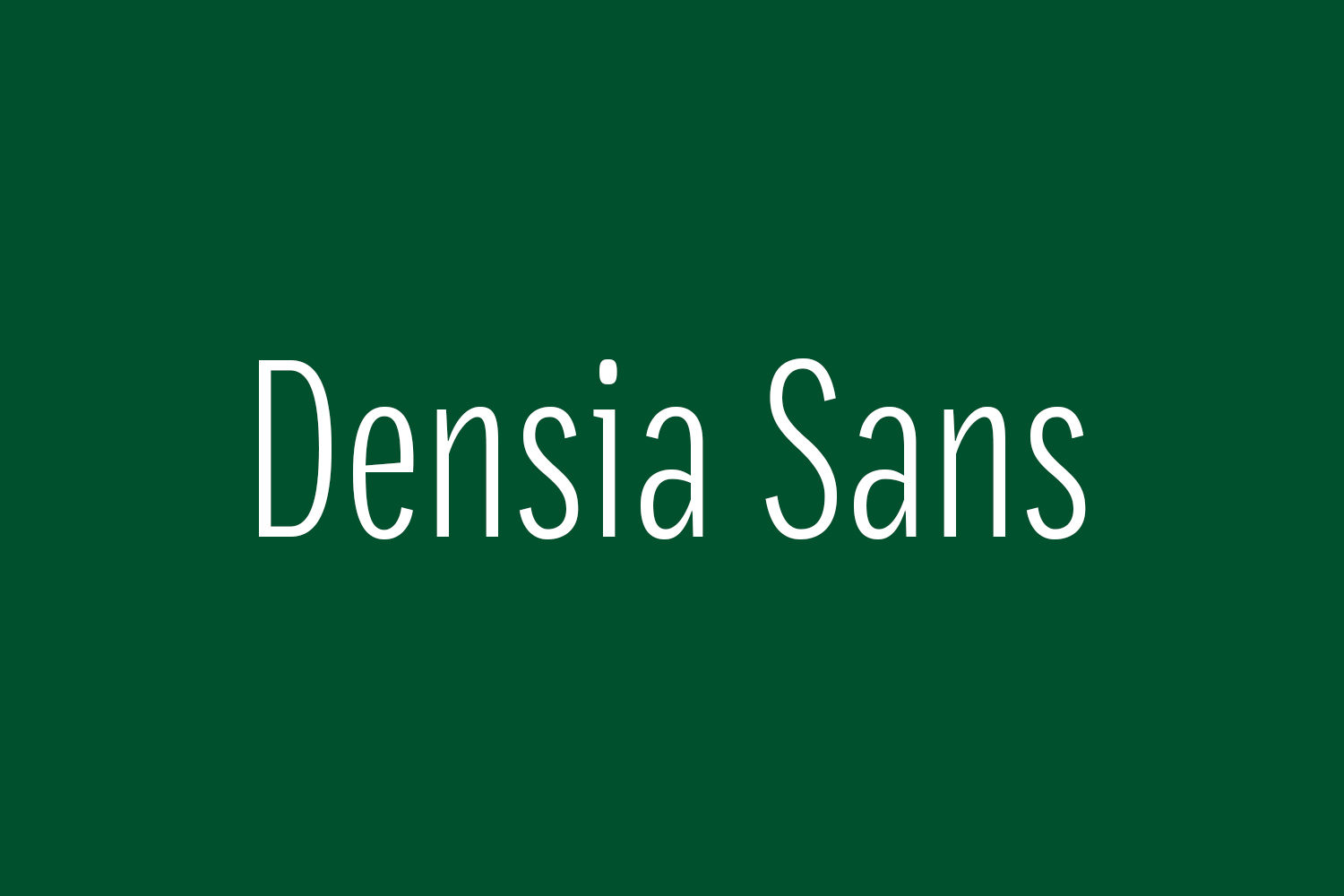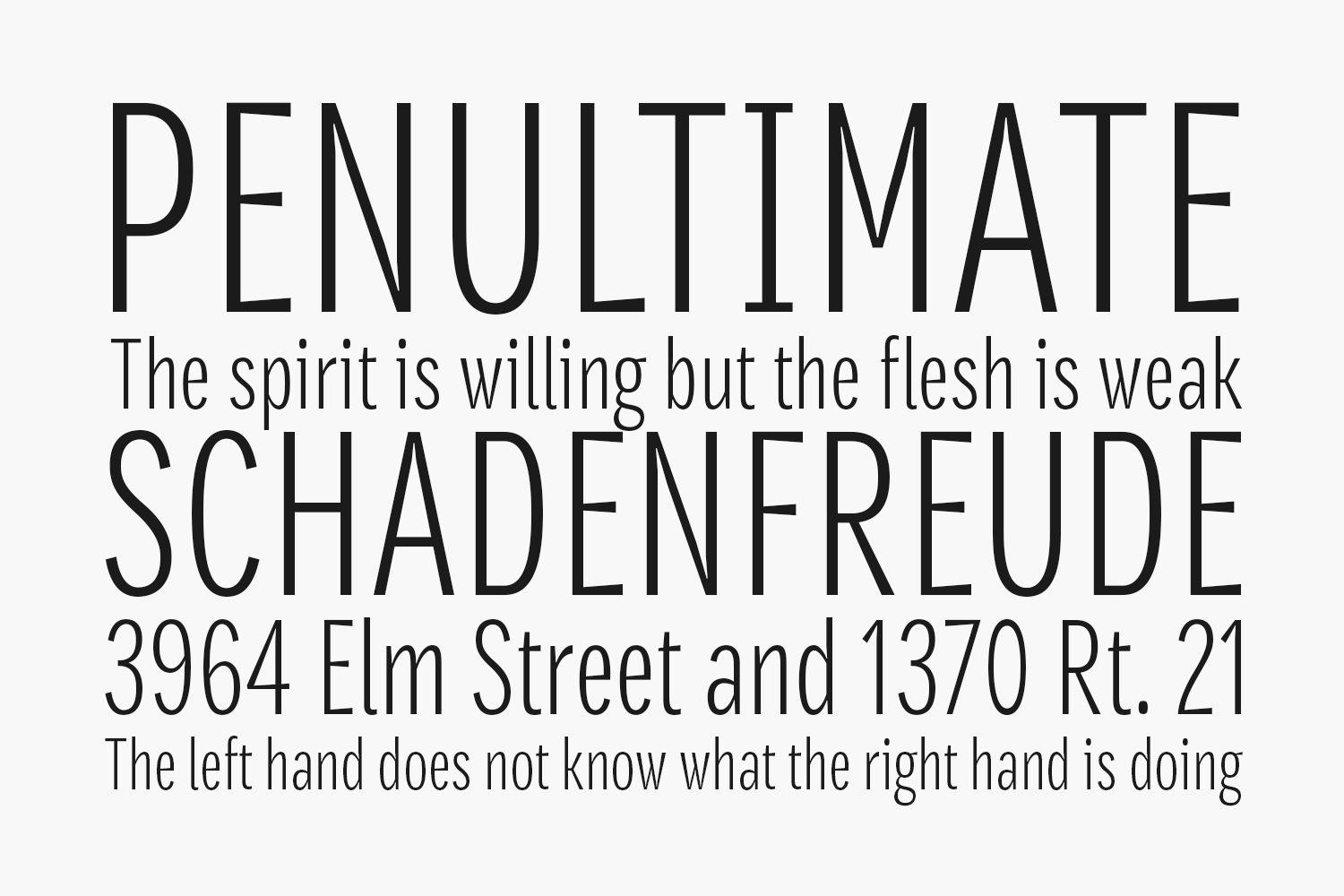
Densia Sans Free Font is an economic sans serif, designed to be used in sizes from 6 to 14 points. Its tall x-height and narrow width make it shine whenever there’s very limited space.
Not only it is space-saving, Densia Sans features a complete set of 820 glyphs, including small caps, case-sensitive forms, proportional and tabular figures, superiors, inferiors, and fractions. Also, its character set supports over 30 languages.